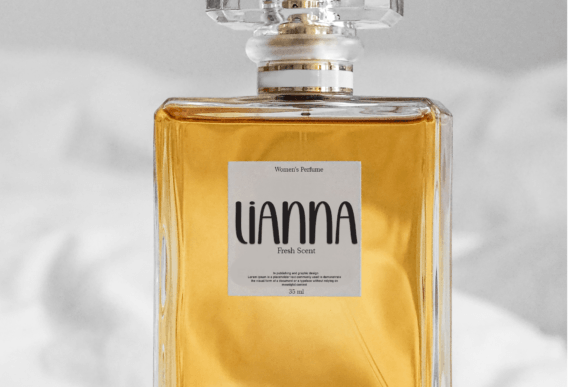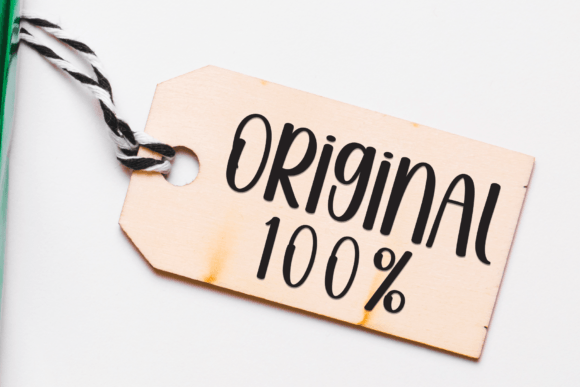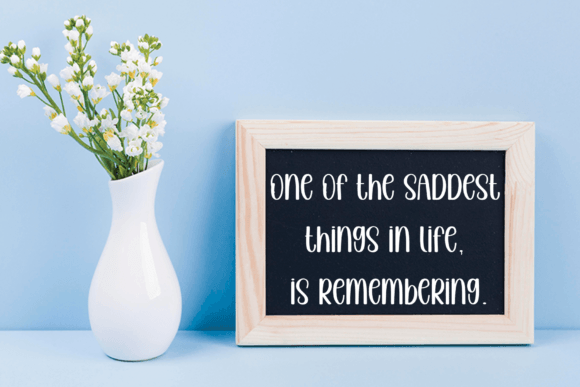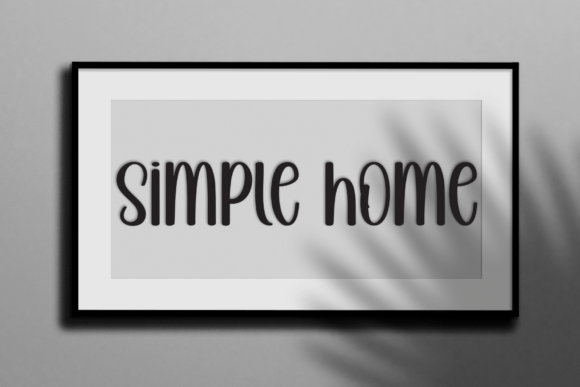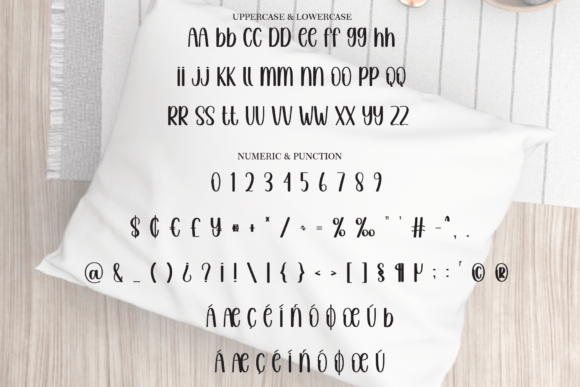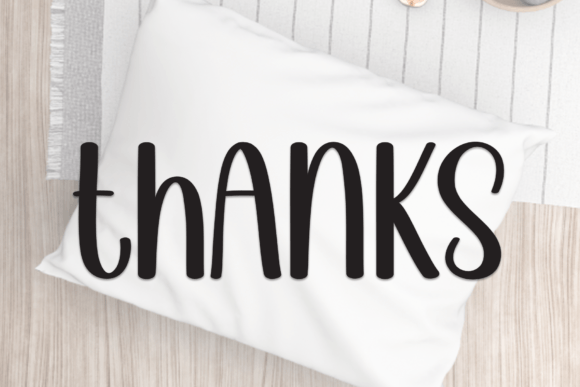
The Sweet Touch of Foampillow Font
Remember that moment when you were brainstorming ideas for your friend’s baby shower invitation and wanted to add a dash of whimsy to the design? You scrolled through font options, and one particular font caught your eye – its playful, handwritten style made you smile. That’s when you stumbled upon Foampillow Font, a font that embodies the perfect blend of sweetness and friendliness.
As a designer, you know the importance of choosing the right font to convey the tone and personality of a design. Foampillow Font is ideal for projects that require a fun and lighthearted touch, such as wedding invitations, cards, or social media graphics. Its fresh and cute design makes it a valuable addition to any designer’s toolkit.
With Foampillow Font, you can add a personal touch to your designs and make them truly special. Whether you’re a seasoned designer or just starting out, this font is sure to bring a smile to your face and inspire your creativity.
Foampillow Font Key Features
- Font Size: 1,000 glyphs, including Latin, Cyrillic, and Greek alphabets
- Resolution: High-resolution fonts suitable for print and digital media
- Unique Characteristics: Foampillow Font features a playful, hand-drawn design with a mix of rounded and angular shapes
- Language Support: Supports over 200 languages, including Latin, Cyrillic, Greek, and many more
- Font Weight: Includes 6 font weights, ranging from Light to Extra Bold
Designer Review: Foampillow Font
Overall, I’d say the Foampillow Font is a unique and intriguing typeface. It’s got a certain whimsy to it that could work well in the right context.
- ✨ The Foampillow Font’s playful, rounded shapes could be perfect for creating a fun, lighthearted atmosphere in children’s books, advertising campaigns, or packaging design.
- ✨ The font’s soft, bubbly feel could also work well for digital interfaces, adding a touch of friendliness to user interfaces and websites.
- ⚠️ The Foampillow Font’s rounded shapes can sometimes make it difficult to read, particularly at smaller font sizes or in dense blocks of text.
- ⚠️ The font’s overall feel can be a bit too cutesy or over-the-top for more serious or formal design projects.
Overall, I think the Foampillow Font is a solid choice for projects that require a playful, approachable vibe. But it may not be the best fit for more straightforward or formal design work.
Practical Application Guide for Foampillow Font
Foampillow Font is ideal for:
- Creating playful and whimsical designs.
- Adding a touch of personality to social media graphics.
- Designing children’s products or educational materials.
Tips for Getting the Most Out of Foampillow Font
Here are a few tips to help you get the most out of Foampillow Font:
- Combine Foampillow Font with other playful fonts for a unique look.
- Use Foampillow Font for headings and subheadings to
Alternatives to Foampillow Font for Designers
1. Bubblegum Sans
Bubblegum Sans is a sans-serif font with a playful, rounded design. It’s perfect for creating fun, youthful, and energetic designs. Use it for branding, packaging, or social media graphics where you want to convey a lighthearted and approachable tone.
Compared to Foampillow Font, Bubblegum Sans is more geometric and less rounded. While Foampillow Font has a softer, more cursive feel, Bubblegum Sans is more structured and modern.
Great Vibes is a script font with a whimsical, handwritten feel. It’s ideal for creating elegant, sophisticated, and creative designs. Use it for wedding invitations, event branding, or luxury packaging where you want to convey a sense of refinement and style.
Compared to Foampillow Font, Great Vibes is more elegant and refined. While Foampillow Font has a playful, cursive feel, Great Vibes is more sophisticated and artistic.
Alex Brush is a script font with a beautiful, handwritten design. It’s perfect for creating unique, creative, and artistic designs. Use it for branding, packaging, or editorial designs where you want to convey a sense of personality and style.
Compared to Foampillow Font, Alex Brush is more elegant and refined. While Foampillow Font has a playful, cursive feel, Alex Brush is more sophisticated and artistic.
Pacifico is a script font with a relaxed, beachy vibe. It’s ideal for creating casual, laid-back, and summery designs. Use it for branding, packaging